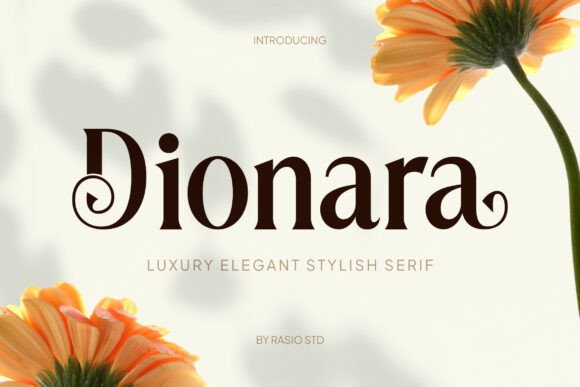
Introducing Dionara Font: Elevate Your Designs with Refined Elegance
In the world of typography, a well-crafted font can make all the difference in elevating a design from ordinary to extraordinary. For designers and crafters seeking a typeface that exudes modern luxury and timeless sophistication, look no further than Dionara Font. This refined and graceful serif typeface is designed to bring a sense of calm luxury and professional refinement to every composition.
The Distinctive Characteristics of Dionara Font
Dionara Font boasts distinctive high-contrast strokes and elegant curvatures that set it apart from other serif typefaces. Its refined features radiate style and confidence, making it an ideal choice for a wide range of applications, from branding and editorial layouts to fashion designs and high-end packaging.
One of the standout features of Dionara Font is its decorative swirls, which add a touch of elegance and sophistication to any design. The typeface also features balanced proportions, ensuring that text remains clear and legible even at smaller sizes. Whether you’re designing a luxury brand identity or a high-end fashion magazine, Dionara Font is sure to make a lasting impression.
What Makes Dionara Font So Versatile?
Dionara Font is a highly versatile typeface that can be used in a variety of contexts. Its classic serif design makes it suitable for editorial layouts, such as newspapers, magazines, and books. The typeface’s elegant curvatures and decorative swirls also make it perfect for fashion designs, including haute couture brands, beauty products, and lifestyle publications.
In addition to its use in print design, Dionara Font can also be used for digital applications, such as websites, social media graphics, and advertising campaigns. Its clear and legible design ensures that text remains readable even on smaller screens, making it an excellent choice for responsive design.
The Technical Details of Dionara Font
Dionara Font comes with a comprehensive range of characters, including uppercase and lowercase letters, numerals, and punctuation marks. This ensures that designers have everything they need to create beautiful and professional-looking text.
The typeface is also designed to be highly legible, with careful attention paid to the spacing and kerning of each character. This ensures that text remains clear and easy to read, even at smaller sizes.
Why Choose Dionara Font for Your Designs?
There are many reasons why designers and crafters should choose Dionara Font for their designs. Here are just a few:
- Refined elegance: Dionara Font exudes modern luxury and timeless sophistication, making it perfect for high-end designs.
- Versatility: The typeface can be used in a wide range of contexts, from print design to digital applications.
- Legibility: Dionara Font is designed to be highly legible, even at smaller sizes.
- Elegant features: The typeface’s decorative swirls and balanced proportions make it perfect for designs that require a touch of elegance.
In conclusion, Dionara Font is a refined and elegant serif typeface that is perfect for designers and crafters seeking to elevate their designs with modern luxury and timeless sophistication. Its distinctive high-contrast strokes, elegant curvatures, and decorative swirls make it an ideal choice for a wide range of applications, from branding and editorial layouts to fashion designs and high-end packaging.